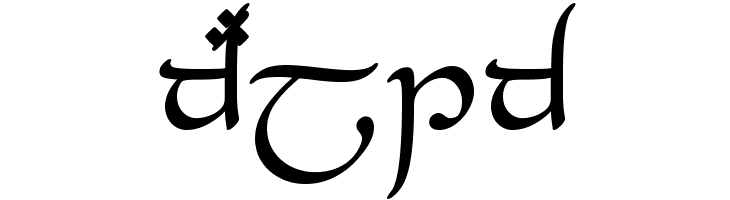
A decorative script inspired by Elvish languages, featuring elegant and flowing lines.
An elegant, intricate script font with a mystical and artistic appearance.
Recent favorites include Tengwar_Eldanaro Normal, Tengwar_Eldanaro Medium, Raskhal, NEON ABSOLUTE SANS 1 and Khalif Irsyad. They balance clarity and personality, working well for tech brands, editorial layouts, and social visuals.